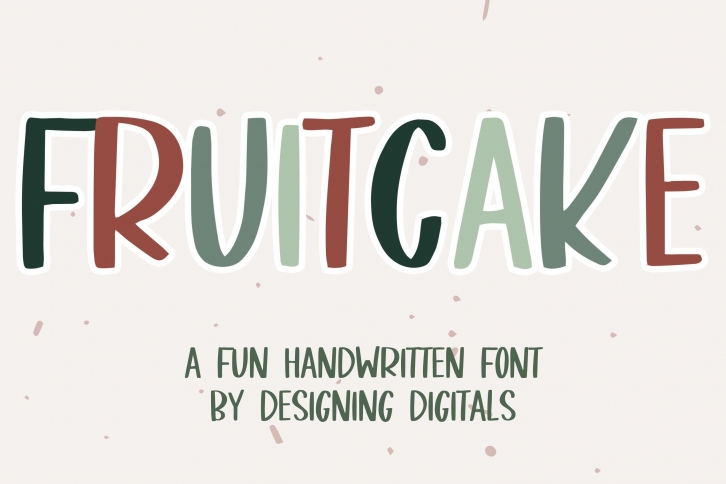
Fruitcake is a quirky and fun handwritten font. This cute typeface is perfect for fun logos, greeting cards, t-shirt design, stickers, social media, and any craft or project hand requires a whimsical, handmade look.